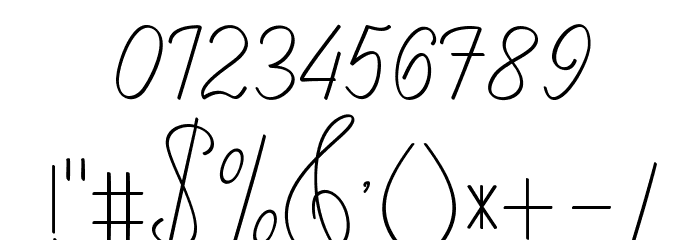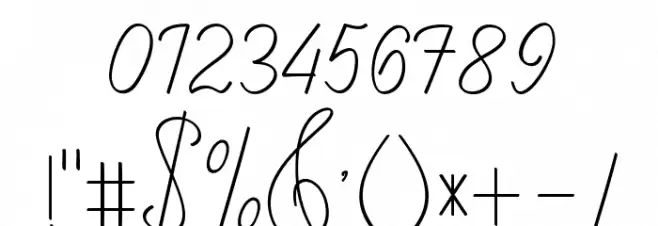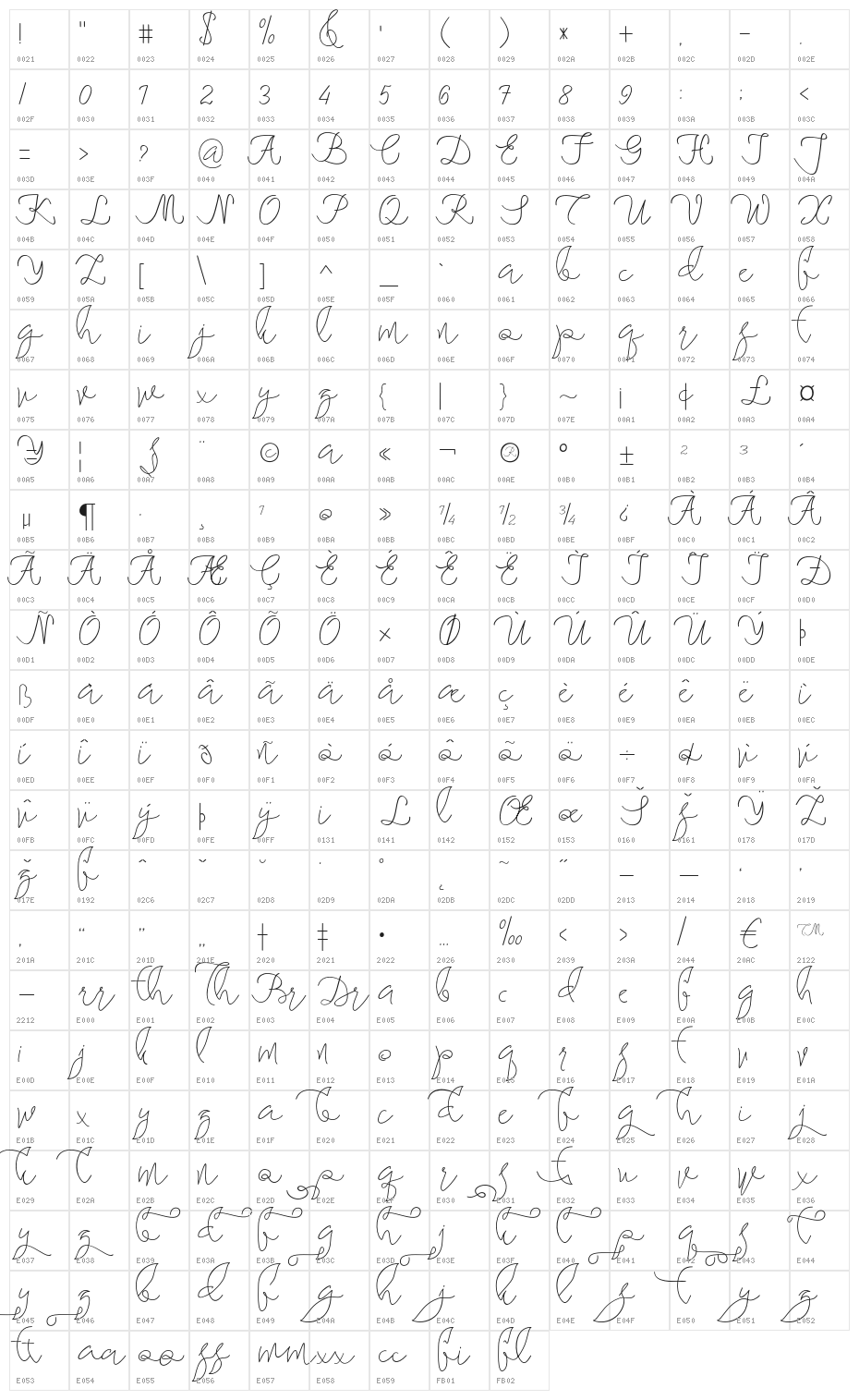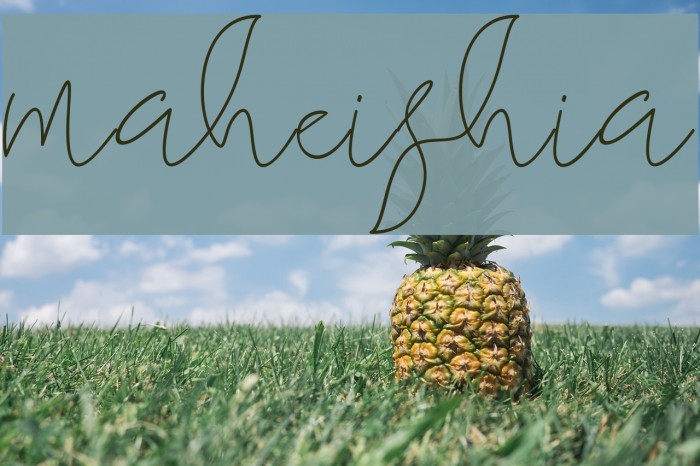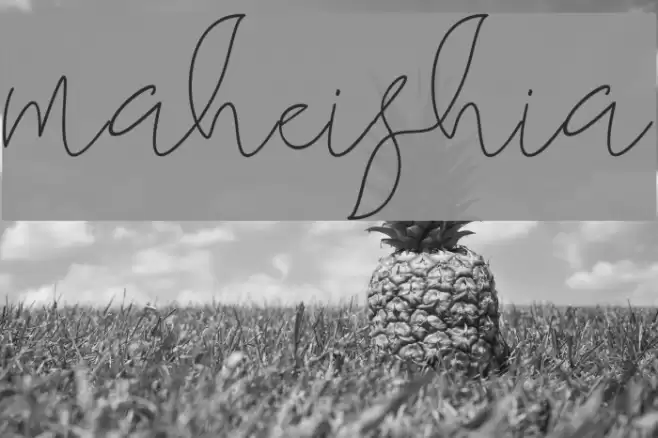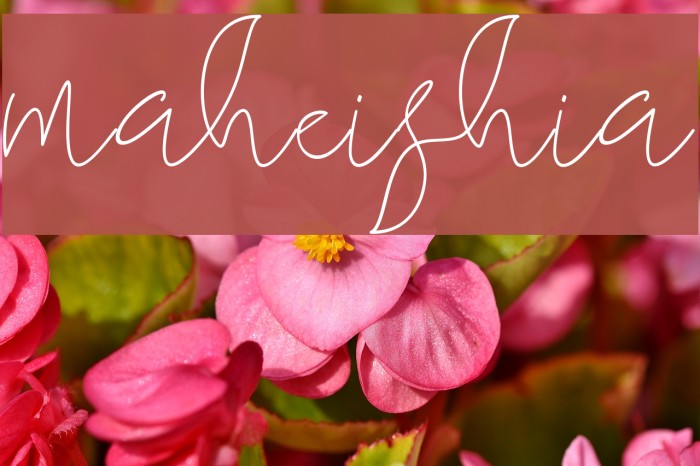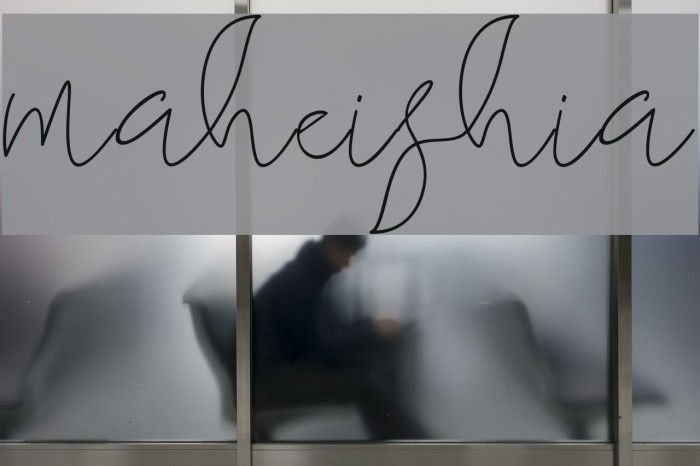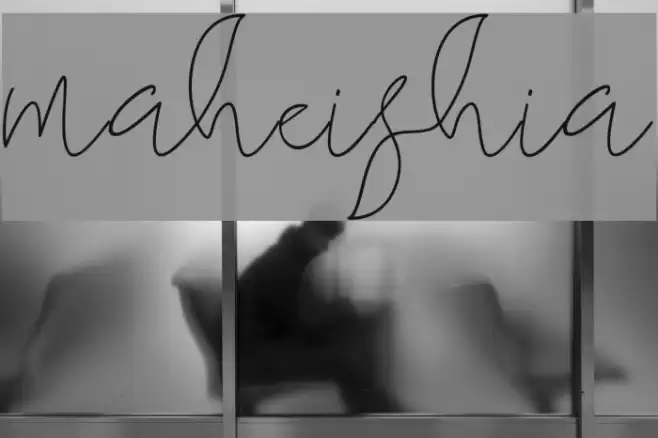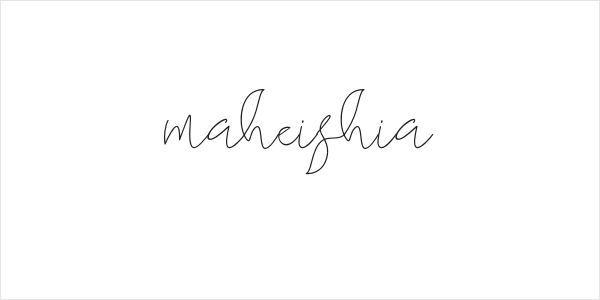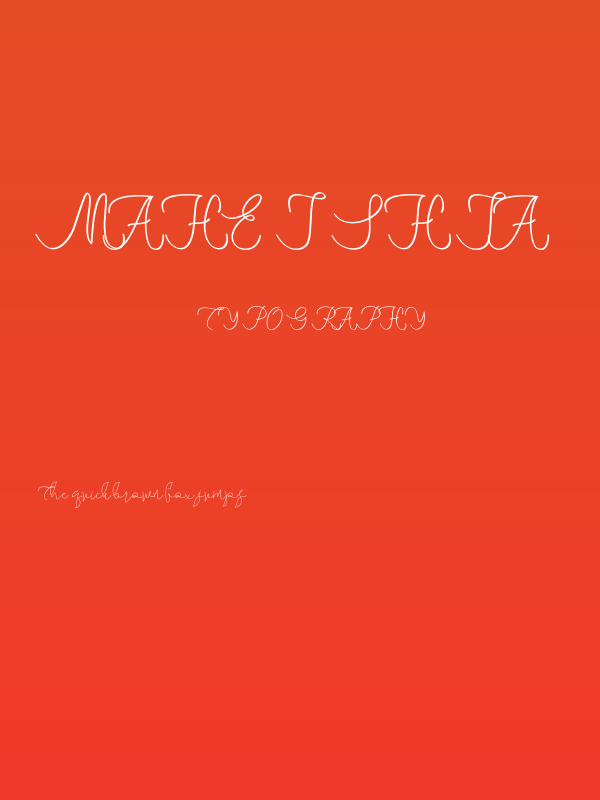
maheishia Font
maheishia Description
This font features an elegant and flowing script style, characterized by its smooth, continuous strokes that mimic the fluidity of handwriting. The uppercase letters are ornate, with graceful loops and curves, while the lowercase letters maintain a consistent, connected form that enhances readability. The numerals are designed with a similar fluidity, ensuring they blend seamlessly with the alphabetic characters. Special characters are crafted with the same attention to detail, providing a cohesive look across all elements. This font exudes a sense of sophistication and charm, making it suitable for a variety of creative applications.
| Proposed Projects | Ideal for wedding invitations, greeting cards, personal branding, and elegant logo designs. |